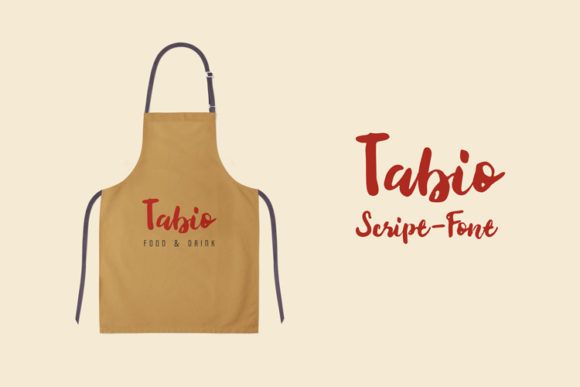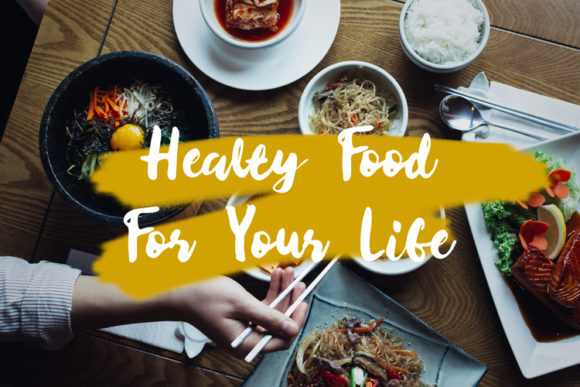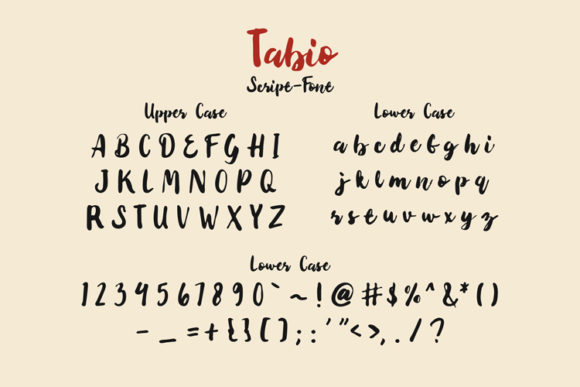
Tabio Font
About Tabio Font
Tabio is a cute handwritten font, carefully handcrafted to become a true favorite. Use this gorgeous and unique font to bring any DIY project to life!